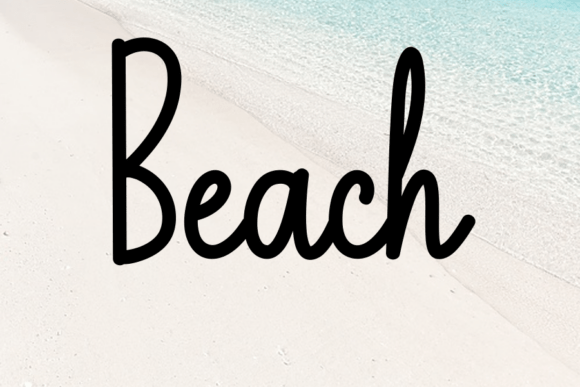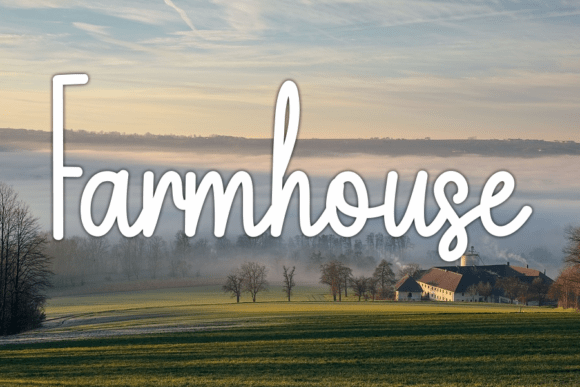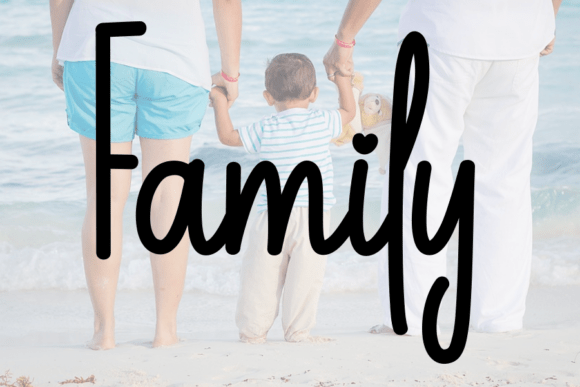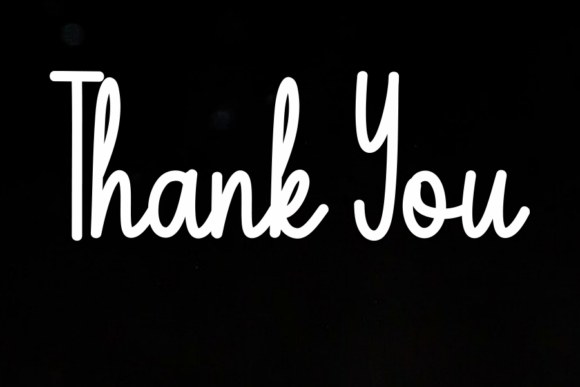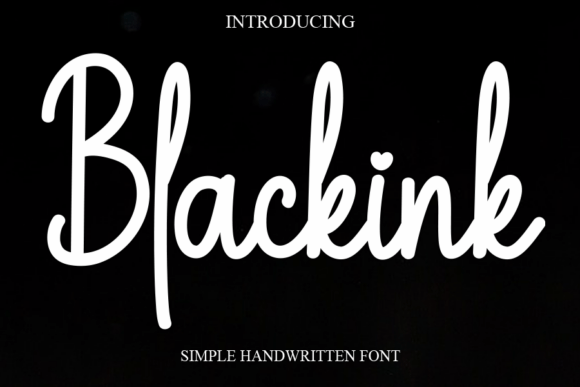
The Power of Simple Handwritten Fonts: A Deep Dive into Blackink
I’ll never forget the time I was working on a greeting card project for a client, and I just couldn’t seem to find the right font. I wanted something that felt simple, yet elegant; something that would add a touch of warmth to the design without overpowering it. That’s when I stumbled upon Blackink, a beautiful handwritten font that has since become a staple in my design toolkit.
Blackink is a simple handwritten font that has a wide spectrum of applications, ranging from greeting cards to headlines. Its versatility and natural feel make it an excellent choice for designers, crafters, and creative hobbyists looking to add a personal touch to their projects.
An Honest Review of Blackink
- ✨ Simple and elegant design that’s perfect for a wide range of projects
- 💫 Works beautifully with OpenType features, glyphs, and stylistic alternates
While Blackink is an excellent font, there are a few things to keep in mind:
- 🤔 Some users may find the font a bit too simplistic for certain projects
- ⚠️ May not work as well with very ornate or decorative design elements
The Story Behind Blackink
Blackink was designed by a team of typographers who wanted to create a font that was both simple and elegant. Inspired by traditional handwritten scripts, Blackink is a modern take on classic typography. The font’s clean lines and simple design make it perfect for a wide range of projects, from digital designs to print materials.
| Font Name | Blackink Font |
| Author | cans studio |
Q: What is Blackink?
A: Blackink is a simple handwritten font that’s perfect for a wide range of projects, from greeting cards to headlines.